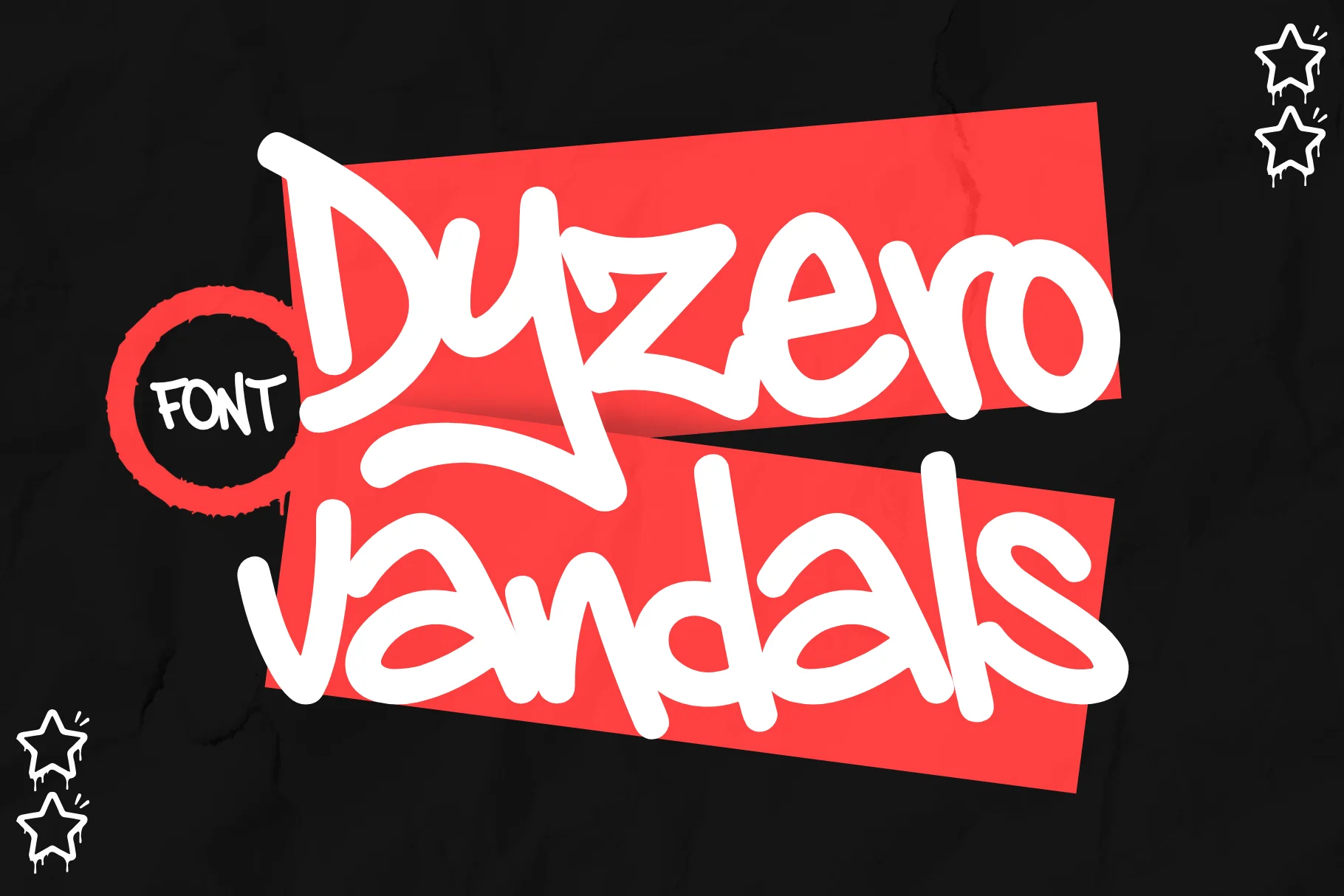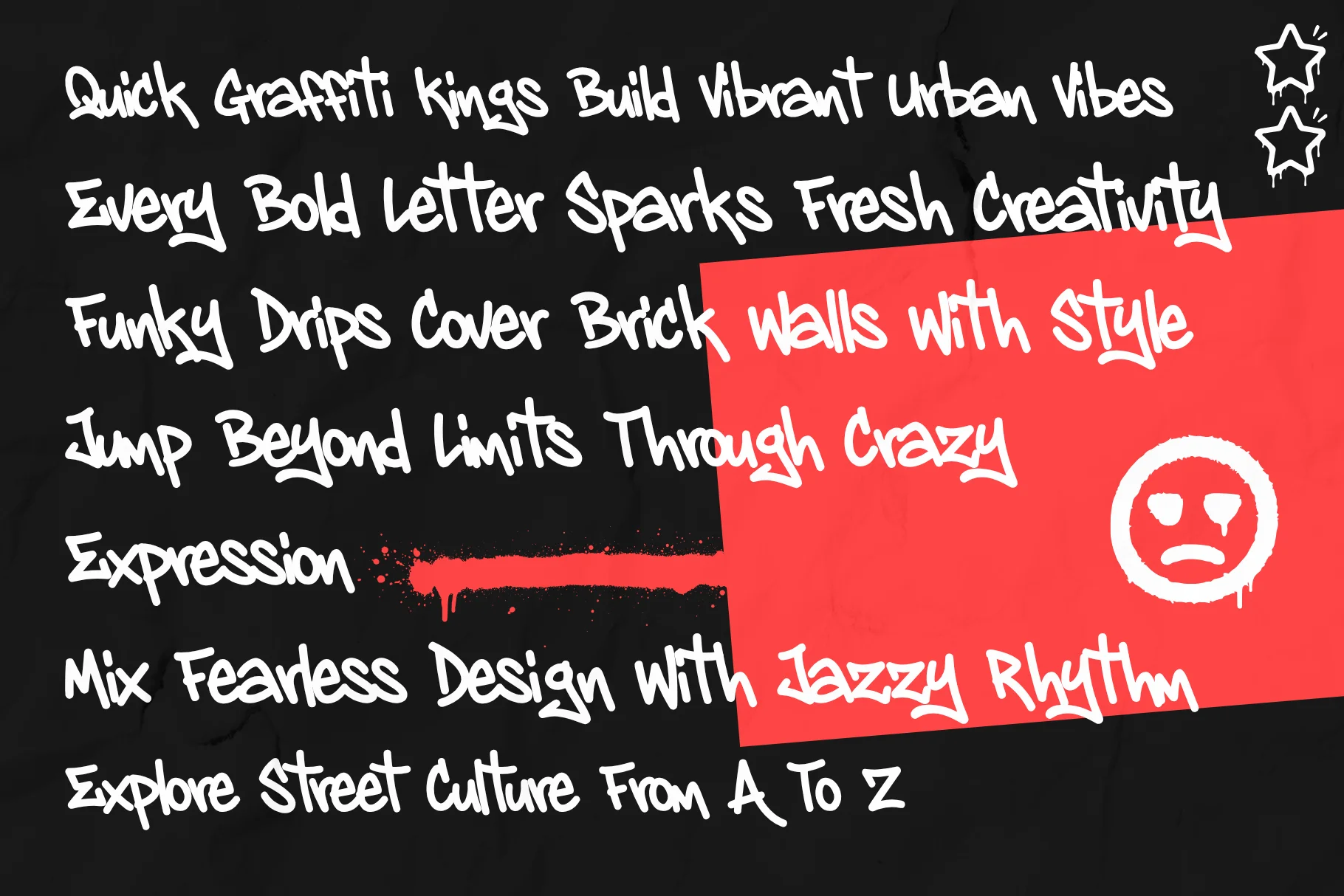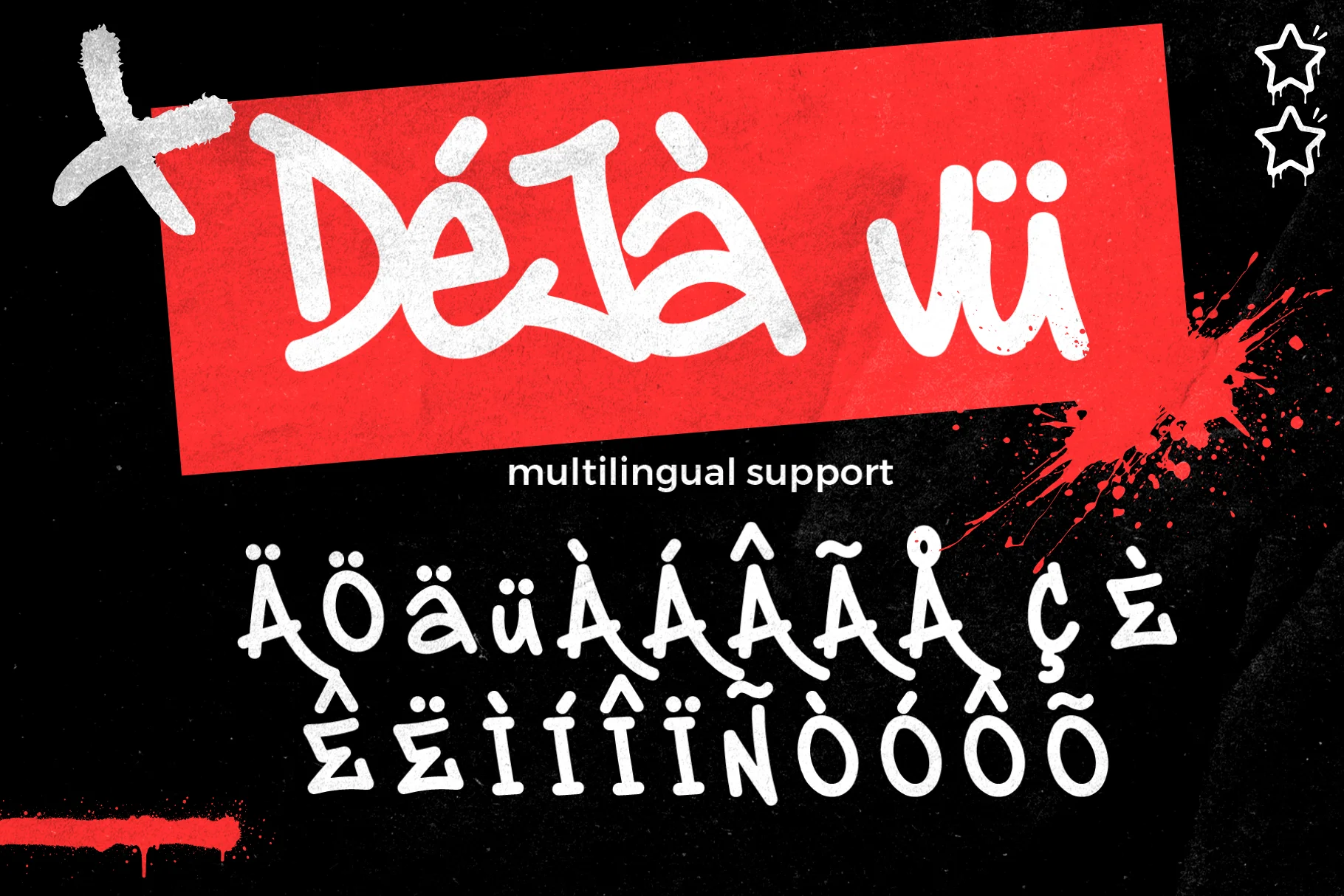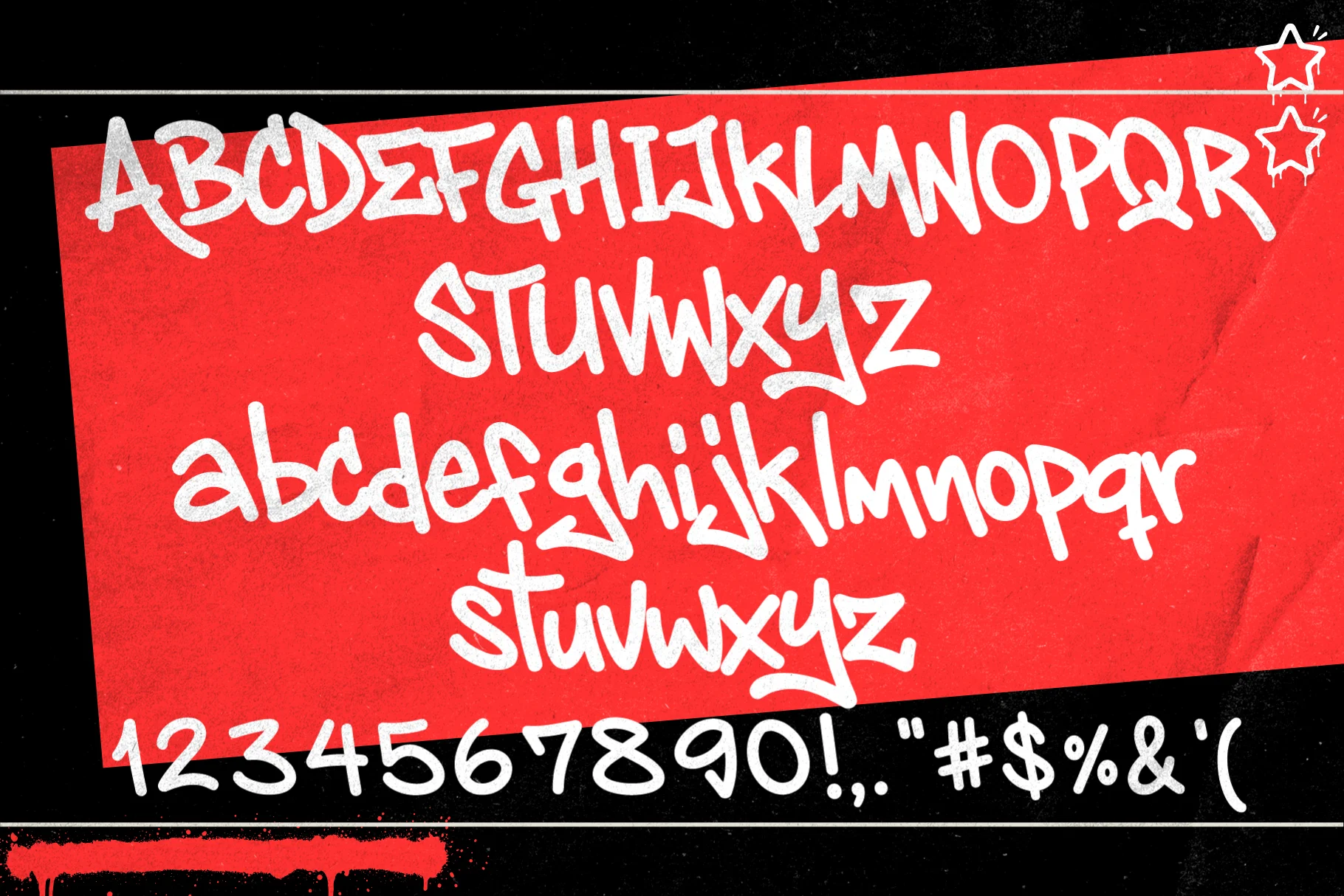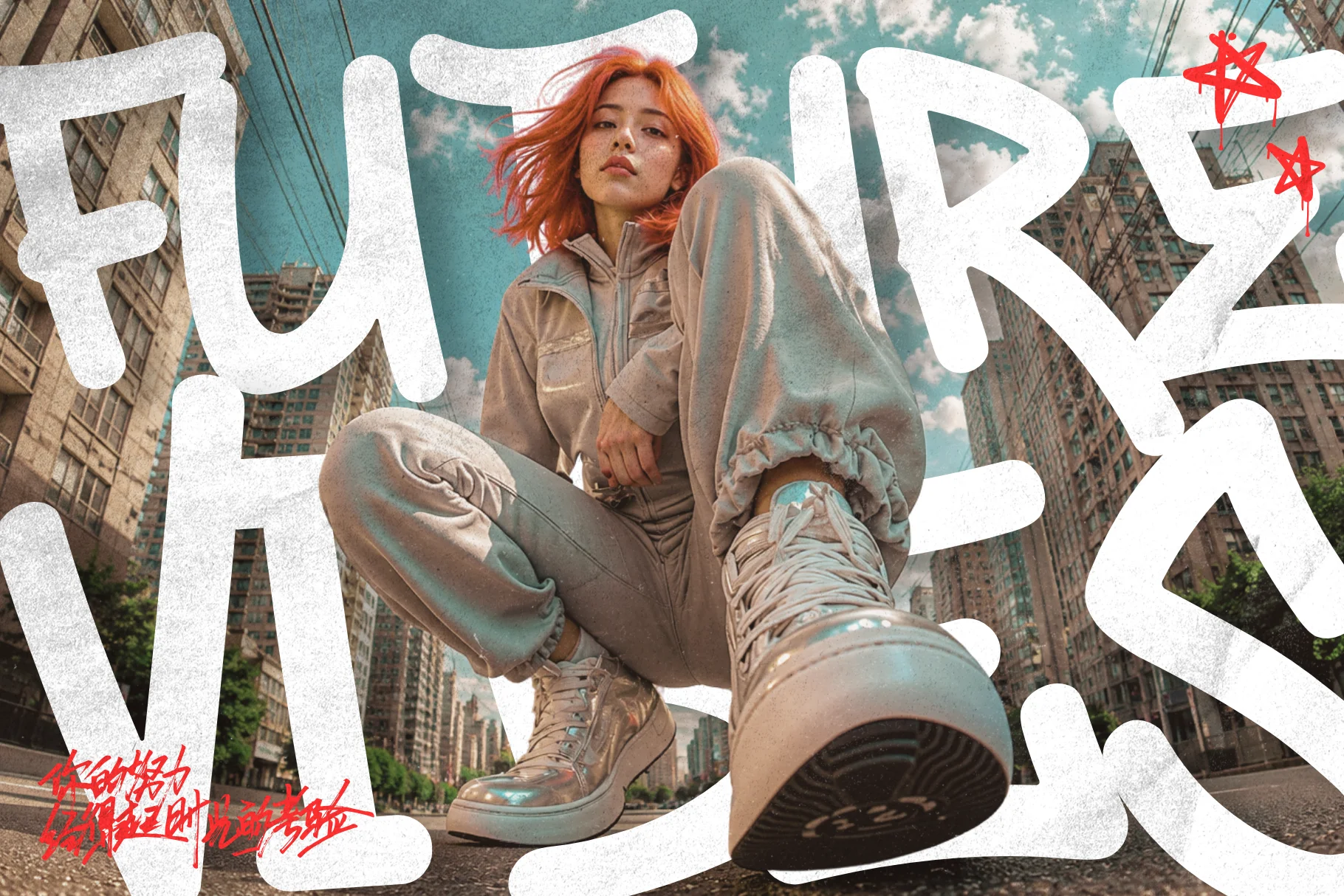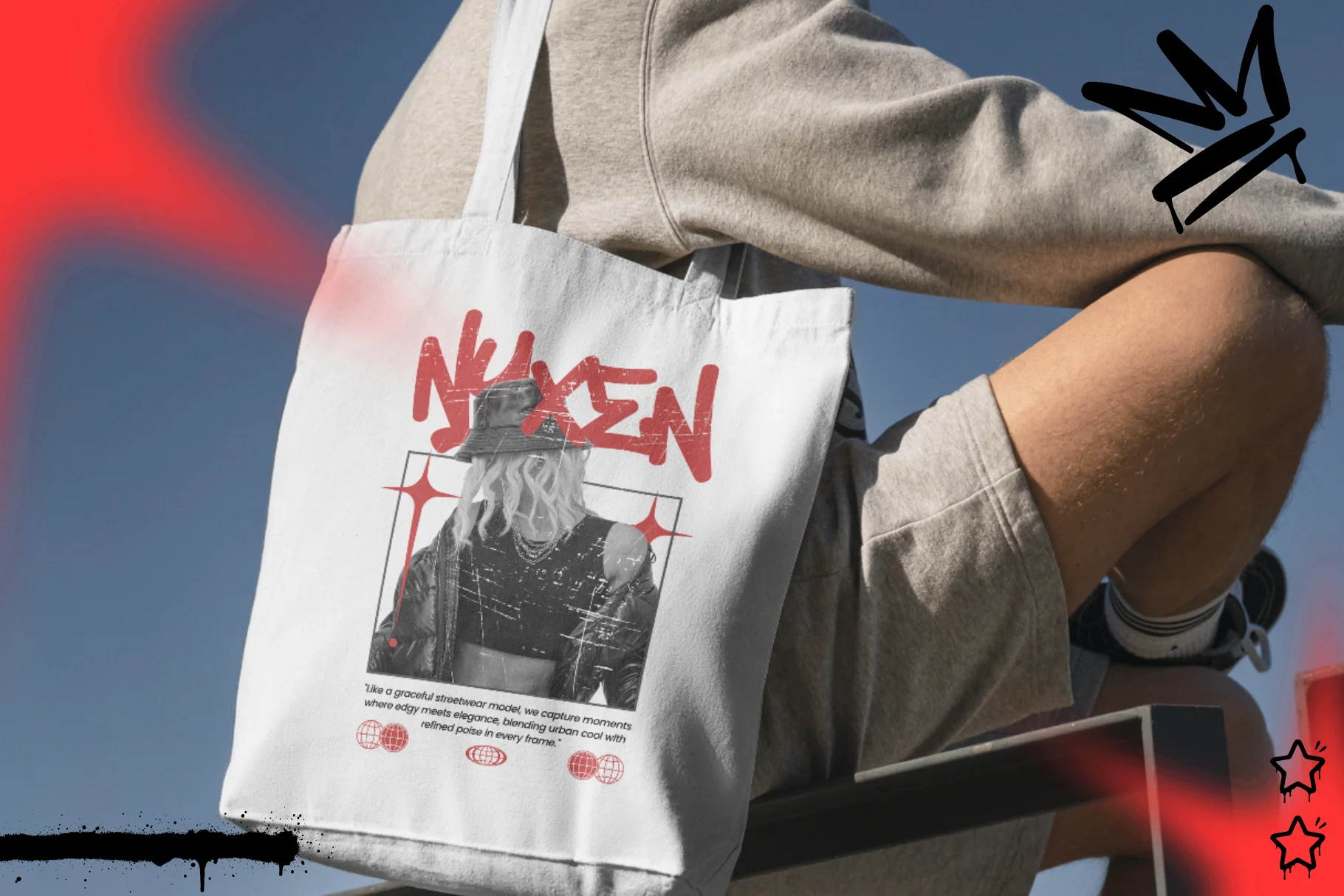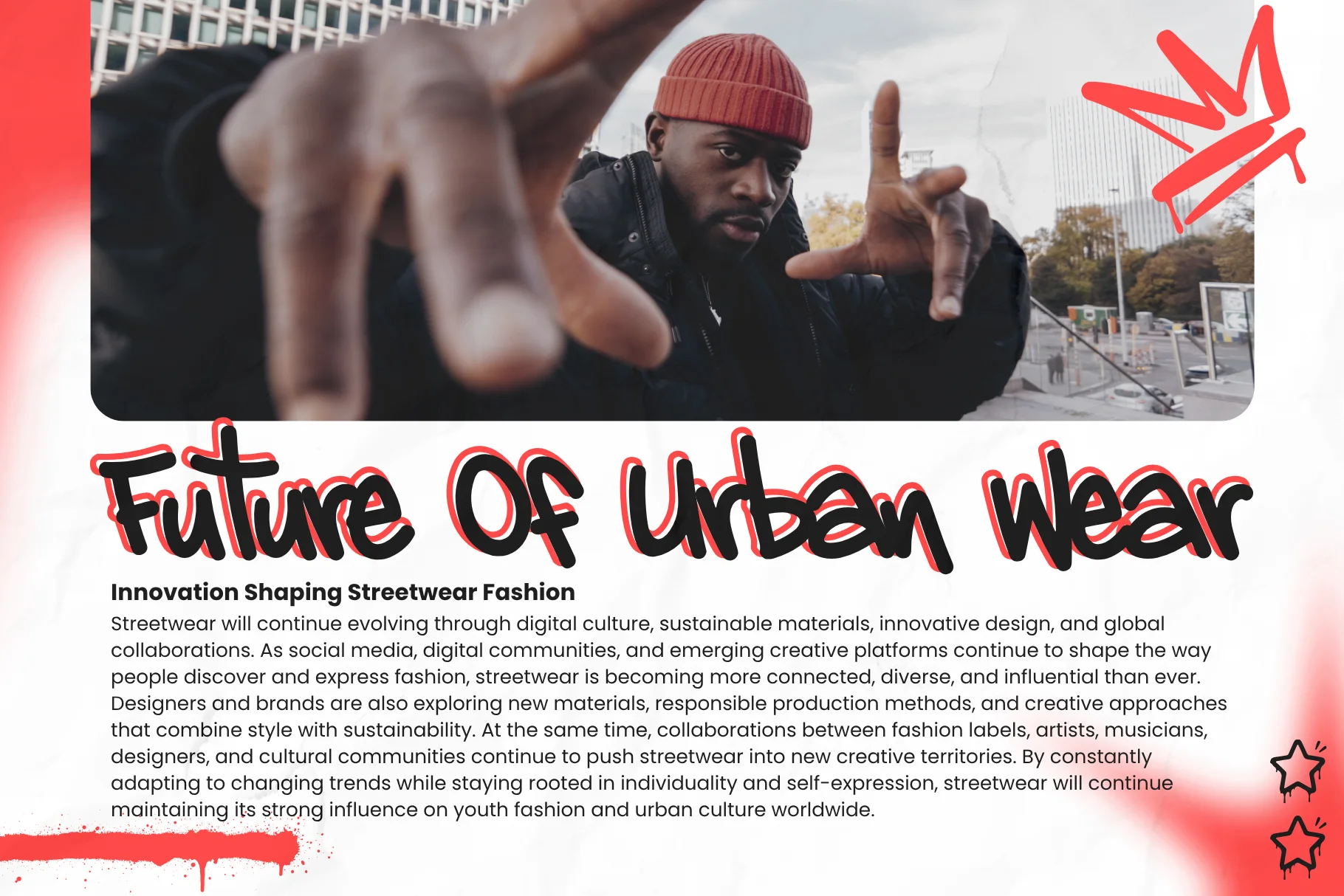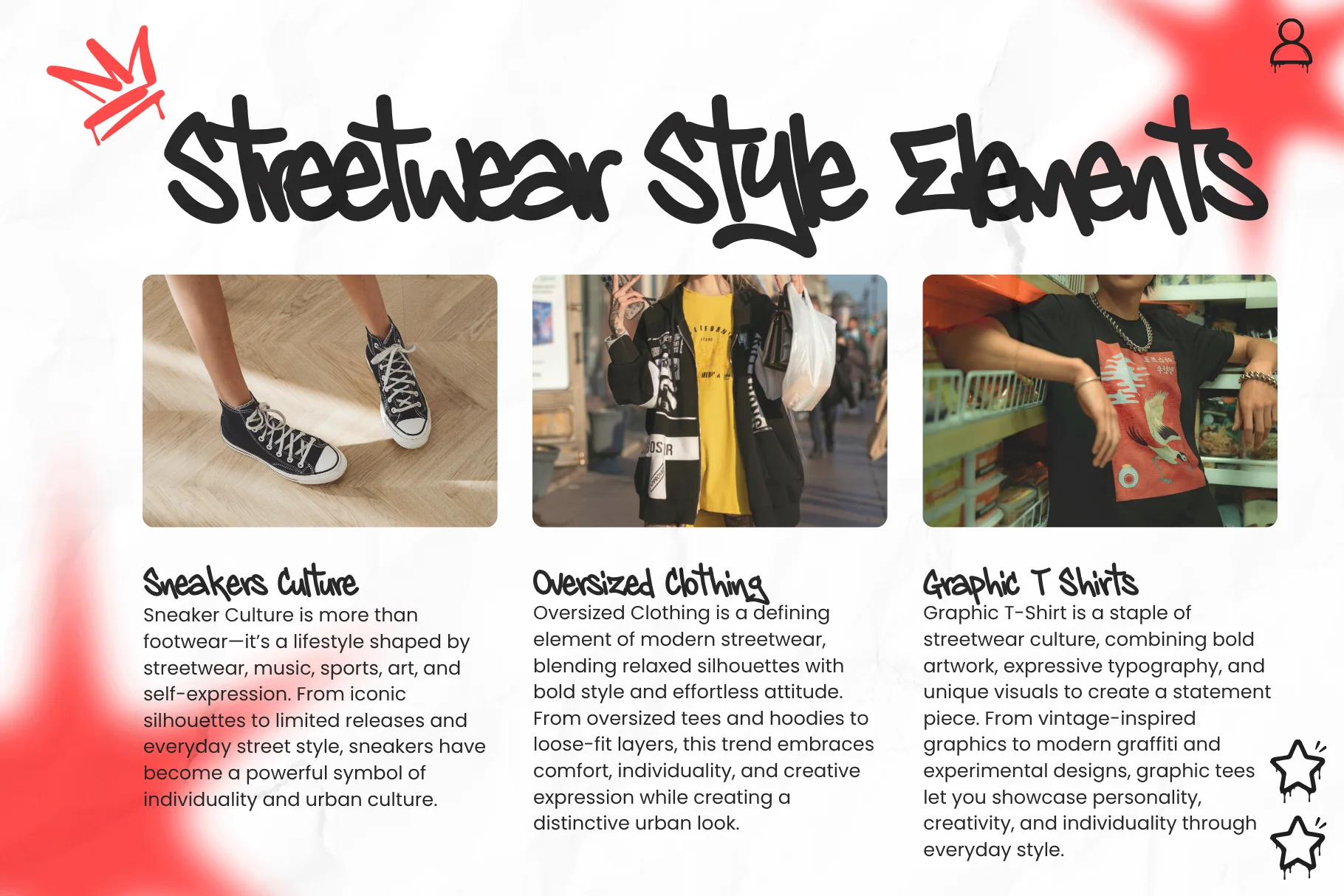
About Dyzero Vandals
Dyzero Vandals is a raw and expressive handwritten graffiti font inspired by spontaneous street tags, marker lettering, urban signatures, and underground visual culture.
Built with loose strokes and an intentionally imperfect rhythm, Dyzero Vandals captures the natural movement of real hand-drawn tagging. The result is lettering that feels personal, energetic, rebellious, and unmistakably urban.
Its distinctive character makes it a strong choice for streetwear, logos, posters, album artwork, stickers, packaging, social media graphics, merchandise, and creative branding.
Natural Handwritten Graffiti Style
Dyzero Vandals is designed around the movement of quick handwritten tags. Irregular shapes, energetic strokes, and organic letterforms give every word a spontaneous appearance rather than the polished feeling of conventional digital typography.
This natural construction allows the font to work especially well when you want typography to feel raw, expressive, and human.
Inspired by Authentic Graffiti Tagging
The visual language of Dyzero Vandals takes inspiration from graffiti tags found on urban walls, sketchbooks, markers, stickers, and street culture.
It brings the energy of spontaneous tagging into a practical digital typeface, making it suitable for contemporary streetwear, music, skate culture, nightlife, art projects, and alternative branding.
Built for Bold Creative Work
Dyzero Vandals can stand confidently as a main display typeface or work alongside photography, illustrations, textures, stickers, and clean supporting typography.
Use it for:
- Streetwear and apparel graphics
- Logos and brand identities
- Posters and event artwork
- Album covers and music promotions
- Stickers and merchandise
- Packaging and labels
- Social media graphics
- Editorial and promotional designs
Character Set
Dyzero Vandals includes uppercase characters designed to preserve the expressive personality of its handwritten tagging style.
The font also includes numbers, punctuation, and multilingual support, providing greater flexibility for branding, display typography, international projects, dates, headlines, and complete phrases.
- Natural handwritten graffiti style
- Authentic tagging-inspired letterforms
- Raw and expressive urban personality
- Uppercase characters
- Numbers and punctuation
- Multilingual support
- Ideal for display typography
Streetwear and Apparel
The handwritten tagging character of Dyzero Vandals naturally fits oversized t-shirts, hoodies, jackets, caps, tote bags, labels, sleeve graphics, and back prints.
Its energetic strokes can give fashion graphics a stronger sense of movement and help create a recognizable street-inspired identity.
Logos and Branding
Dyzero Vandals is a strong option for brands that need a visual identity with a personal and rebellious edge.
It works particularly well for streetwear labels, musicians, skate brands, artists, tattoo studios, nightlife projects, creative studios, and youth-oriented businesses.
Pair it with a clean sans-serif typeface to create contrast between expressive graffiti lettering and more structured supporting information.
Posters and Music Artwork
The font’s loose handwritten movement makes it especially effective for posters, album covers, mixtapes, concert graphics, promotional artwork, and underground music visuals.
Combine it with photography, distressed textures, bold colors, illustration, or collage elements to build energetic compositions with an authentic street atmosphere.
Make Every Word Feel Hand-Tagged
Dyzero Vandals brings the movement and personality of spontaneous graffiti tagging into a flexible digital typeface.
From streetwear and logos to posters, music artwork, stickers, packaging, and social graphics, its natural handwritten character helps ordinary words feel more personal, energetic, and visually distinctive.
If you’re looking for a graffiti font with raw movement, authentic tagging character, and a strong urban personality, Dyzero Vandals is ready to leave its mark.